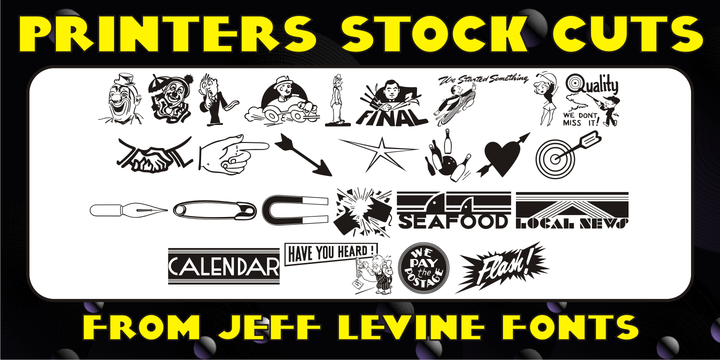
Printers Stock Cuts JNL
by Jeff Levine
Still more vintage letterpress cartoons, cuts, dingbats, ad enhancers and embellishments comprise Printers Stock Cuts JNL.